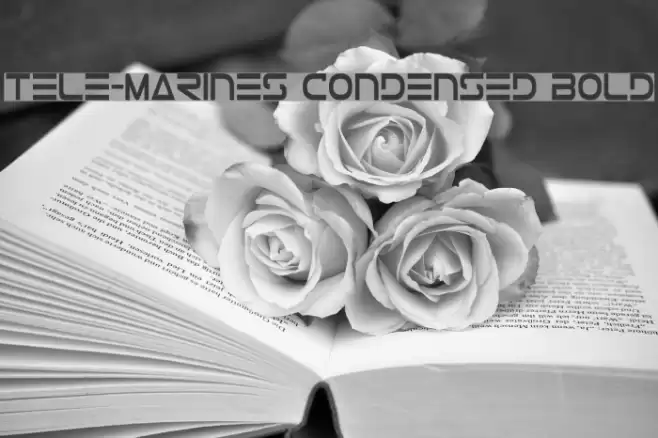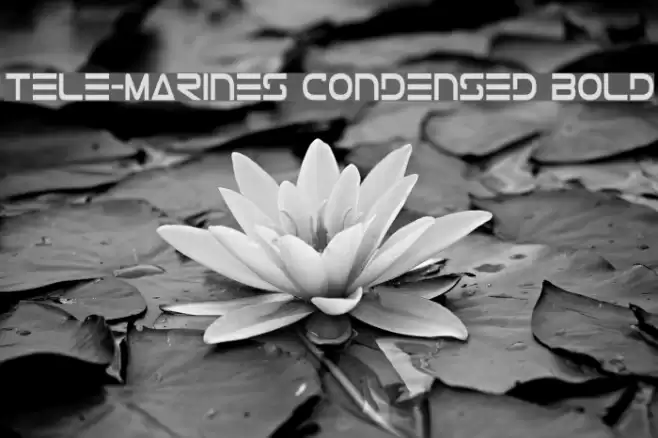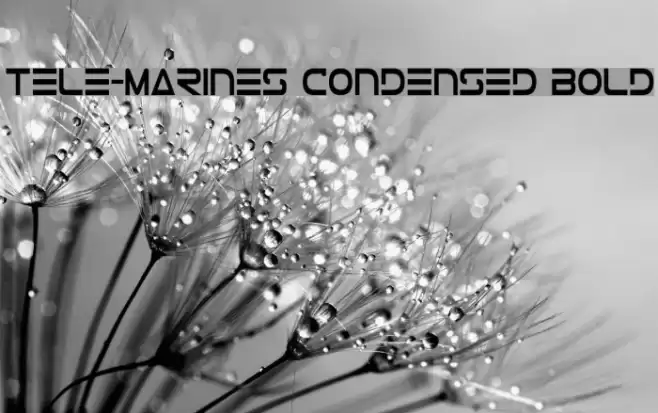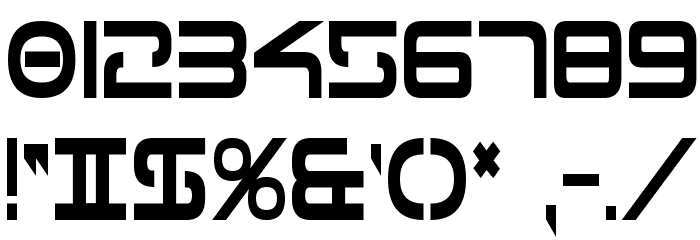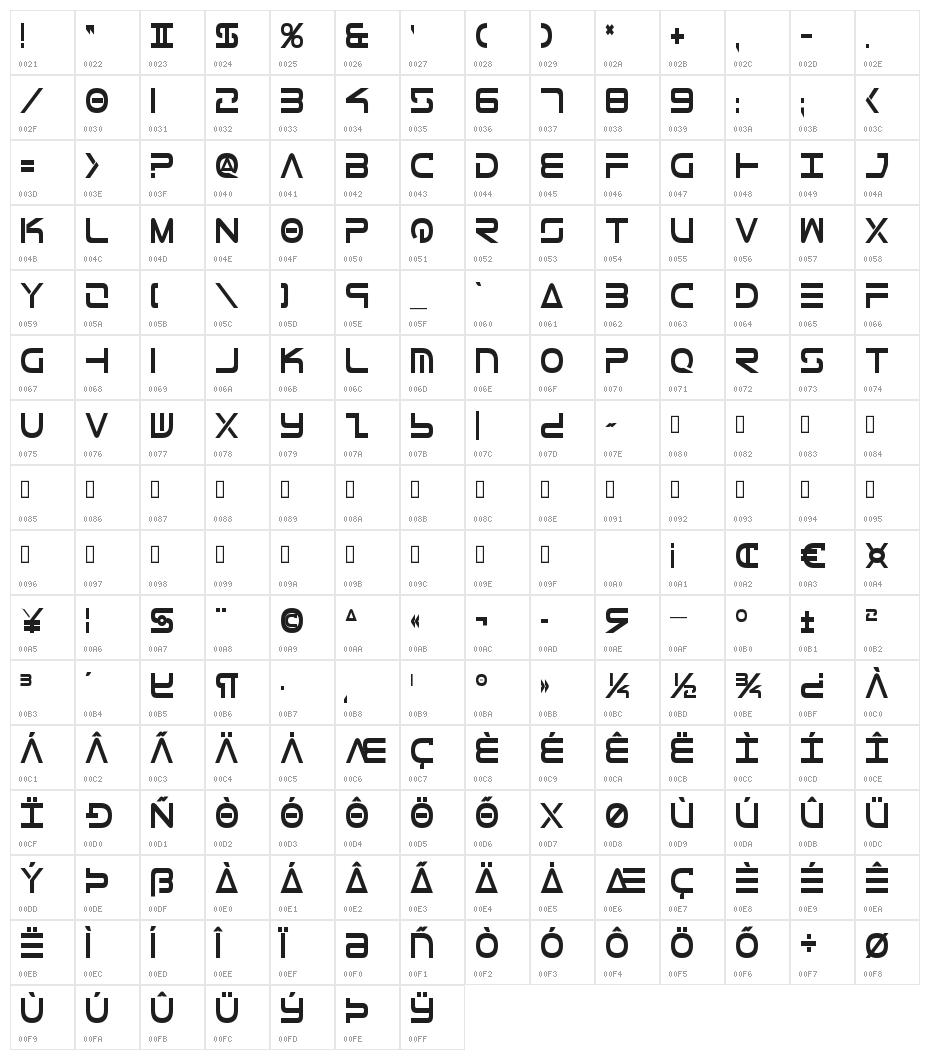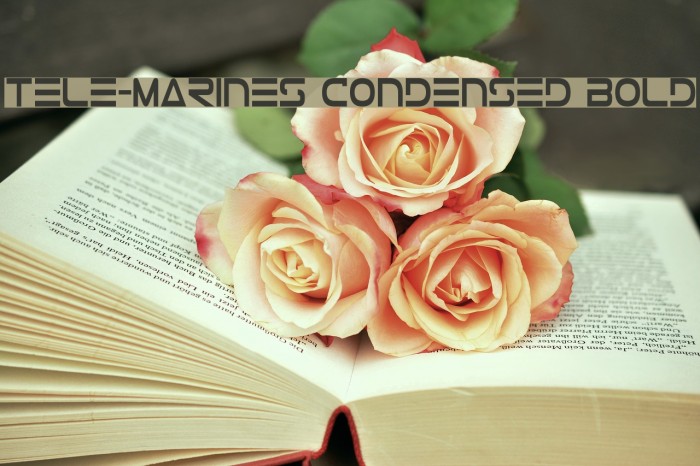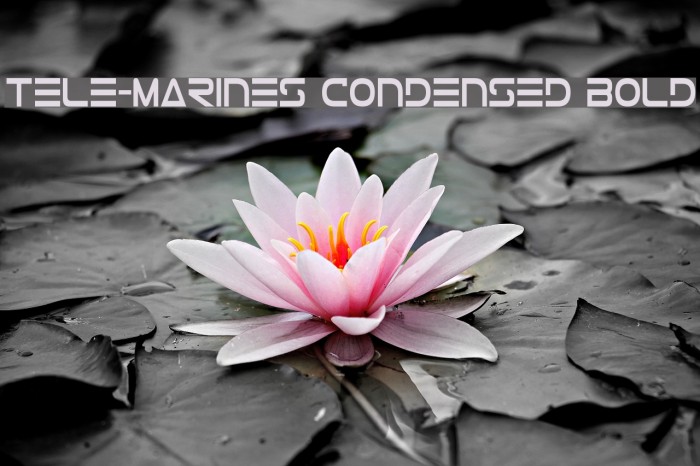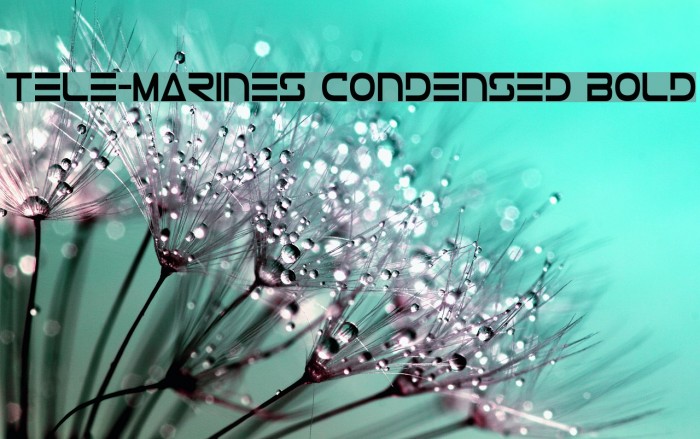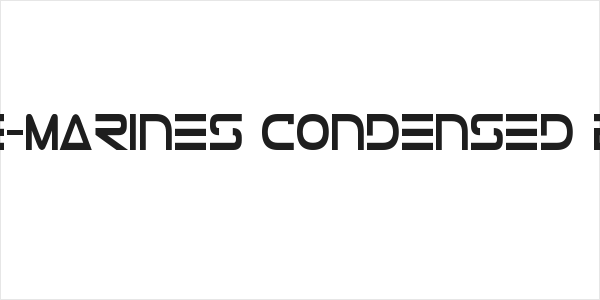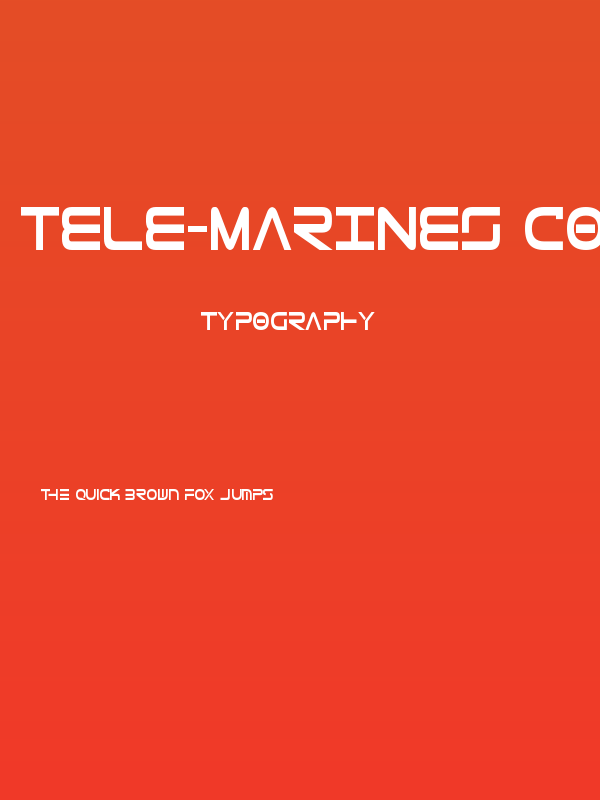
Tele-Marines Condensed Bold Font
Tele-Marines Condensed Bold Description
This font features a futuristic and geometric design with a bold and condensed appearance. The characters are constructed with sharp angles and straight lines, giving it a modern and technical feel. The uppercase letters are particularly striking, with unique cuts and shapes that create a sense of movement and energy. The numerals and special characters maintain this cohesive style, ensuring consistency across all text. The font's distinct style makes it ideal for projects that require a strong visual impact, such as technology branding, sci-fi themes, or modern advertising.
A bold, condensed, and futuristic font with geometric shapes and sharp angles from Uncategorized fonts.
- Proposed Projects: Ideal for technology branding, sci-fi themes, modern advertising, and digital interfaces.